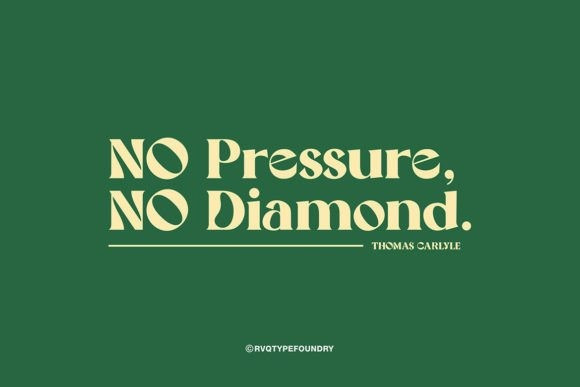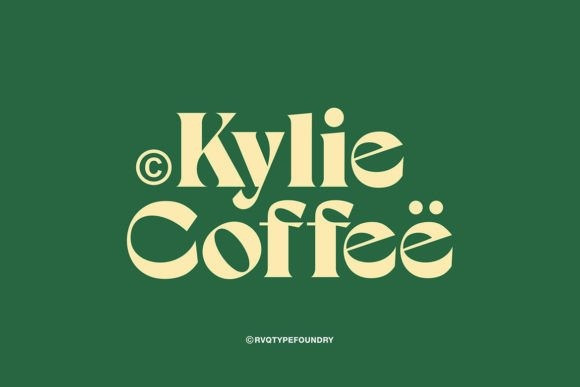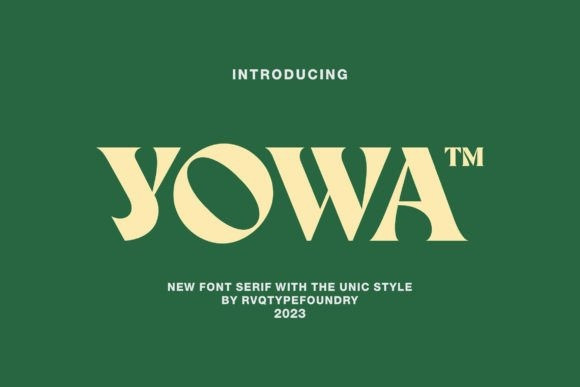
Yowa Font
Yowa Font is an elegant and bold serif font. Fall in love with its incredibly versatile style and use it to create gorgeous wedding invitations, beautiful stationary art, eye-catching social media posts, and much more!